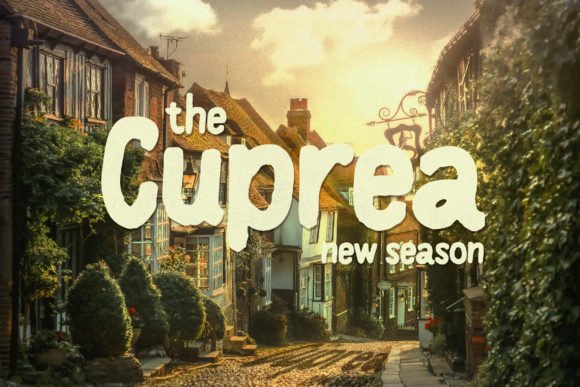
Introduction to Cuprea Font
Cuprea is a fun, trendy and paint brushed display font.
This original look will appeal to a wide range of crafty ideas, from letterheads and titles, to stationery .